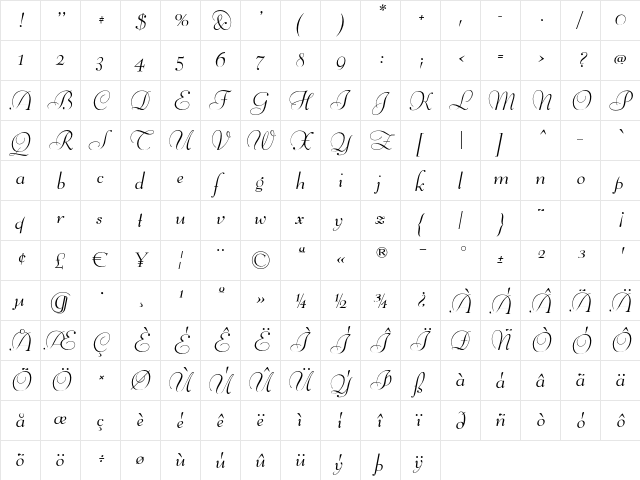
LucianardCursive Regular
Design Context for LucianardCursive Typeface
LucianardCursive flows with the natural rhythm of handwritten lettering, making it ideal for designs that call for warmth and personal expression.
Font Pairing: Combine LucianardCursive with a simple geometric sans for maximum contrast — the tension between flowing curves and clean structure is a classic typographic pairing.
Pro Tip: Use LucianardCursive for short runs of text — names, titles, or taglines. Extended body copy in script faces tires the eye quickly.